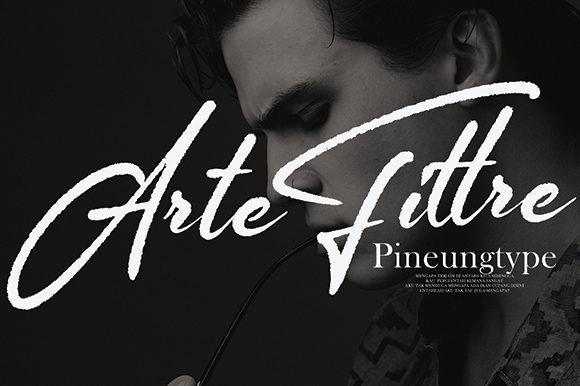
The Elegance of Arte Fittre Font: A Designer’s Delight
I’ll never forget the time I was working on a wedding invitation project, and my client asked for a font that was elegant, yet playful. I scoured the internet, trying out font after font, but nothing seemed quite right. That was until I stumbled upon Arte Fittre Font. Its beautiful, handwritten curves and incredibly versatile style won me over, and it’s been a staple in my design toolkit ever since.
An Honest Review of Arte Fittre Font
- ✨ Elegant and sophisticated, perfect for wedding invitations, stationery, and social media posts
- ✅ Incredibly versatile, with a wide range of uses, from formal to informal designs
- 💫 PUA encoded, making it easy to access all glyphs and swashes
- 🎨 Beautifully crafted, with a unique and distinctive style
While Arte Fittre Font is an amazing font, there are a few things to keep in mind. For example, ⚠️ some users have reported issues with kerning, and it’s not suitable for very small text sizes. However, these are minor complaints, and overall, the font is a joy to work with. 🤔
The Backstory of Arte Fittre Font
Arte Fittre Font was created with the goal of crafting a beautiful, elegant font that would be perfect for a wide range of design projects. The designer wanted to create a font that was both sophisticated and playful, with a unique and distinctive style. The result is a font that is both versatile and stunning.
Q: Is Arte Fittre Font suitable for body text?
A: While Arte Fittre Font is beautiful, it’s best suited for display text or headings. For body text, a clearer font may be more suitable.